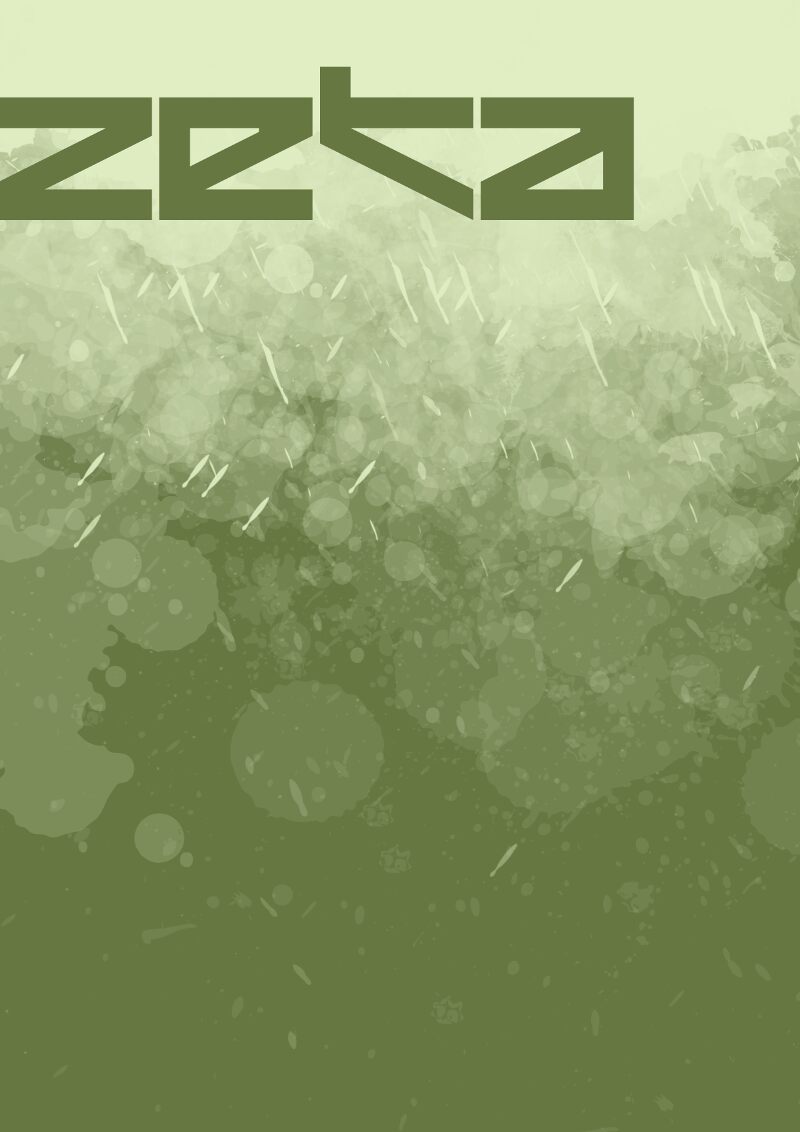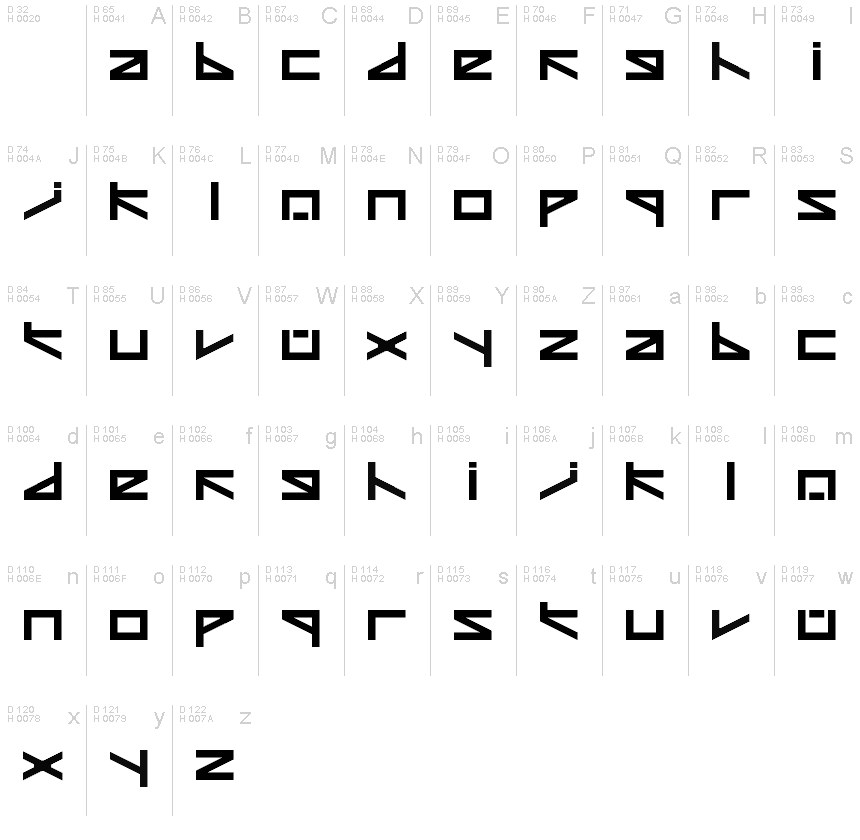
Zeta Regular
"A font originally based around the logo font for 'SYLVA', a fictional company in the Wipeout series. However this evolved into a completely different font, very similar to one used in Wipeout 3. Still, the font is completely original, and the original letters that match 'SYLVA' have since been changed."
Made in 2009.